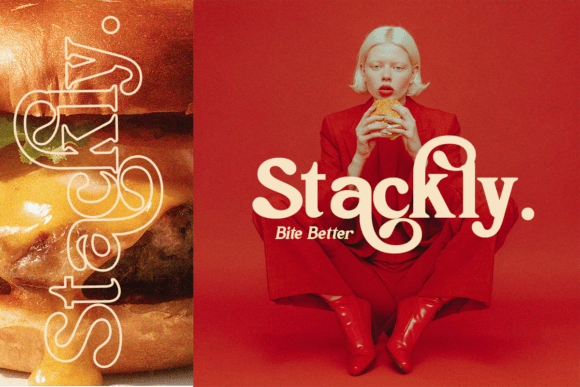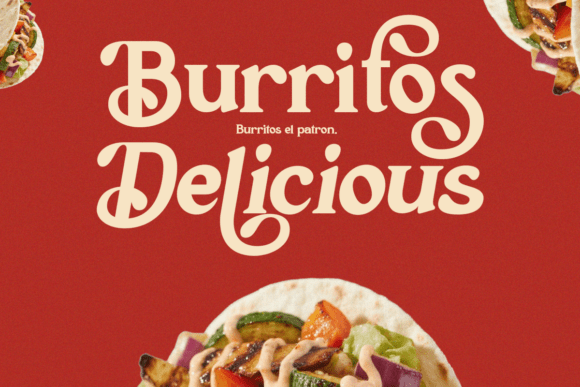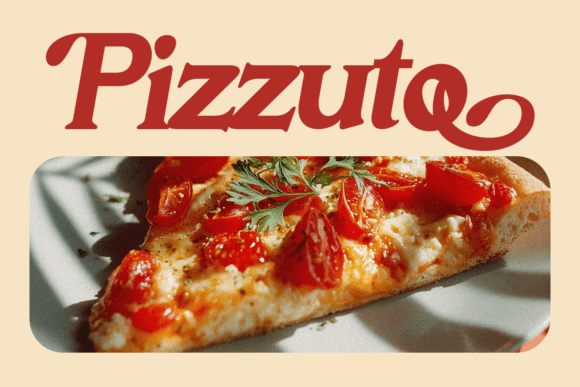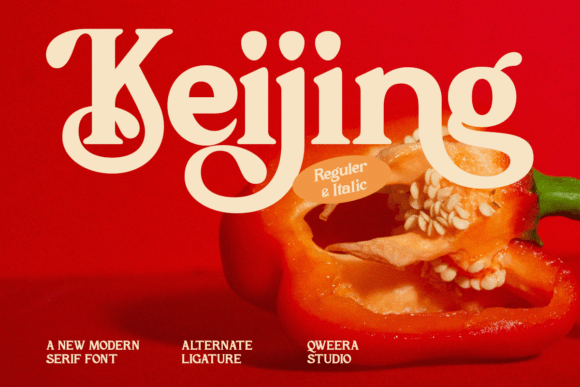
Introduction to Keijing Font
Keijing Font is a decorative modern serif designed with bold personality and playful curves.
This expressive typeface is perfect for branding, packaging, posters, and creative display typography With unique letterforms and stylish alternates, Keijing delivers modern retro character and distinctive branding appeal.